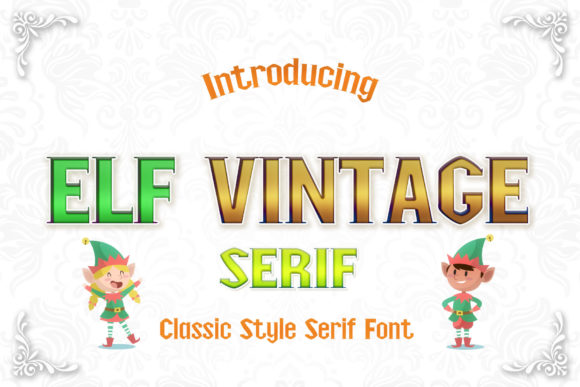
Journey through a whimsical world of Halloween enchantment with Elf Vintage Font, a captivating serif font that will cast a spellbinding charm upon your designs. This enchanting font, conjured by the creative minds at numnim, draws its inspiration from the mystique of Halloween, effortlessly evoking an atmosphere of captivating allure and spine-tingling intrigue.
Elf Vintage Font possesses an undeniably unique personality, exuding a vintage charm with a modern twist. Its meticulously crafted glyphs dance across the page like ghostly apparitions, whispering tales of ancient legends and forgotten lore. Each letterform is a work of art, adorned with intricate details that add depth and dimension to your creative endeavors.
Unlock the true potential of your Halloween-themed designs with Elf Vintage Font. Whether you're crafting invitations that send shivers down the spine, creating posters that haunt the imagination, or designing websites that cast a magical spell, this font will elevate your work to new heights of excellence.
Embrace the dark allure of Elf Vintage Font and let your imagination run wild. Its hauntingly beautiful aesthetic will add an unforgettable touch to your Halloween projects, leaving a lasting impression that lingers long after the last pumpkin has been extinguished.
Unleash the magic within your creative soul and let Elf Vintage Font guide you on an enchanting journey through the realm of Halloween enchantment. Surrender to its captivating charm and elevate your designs to the realm of the extraordinary!